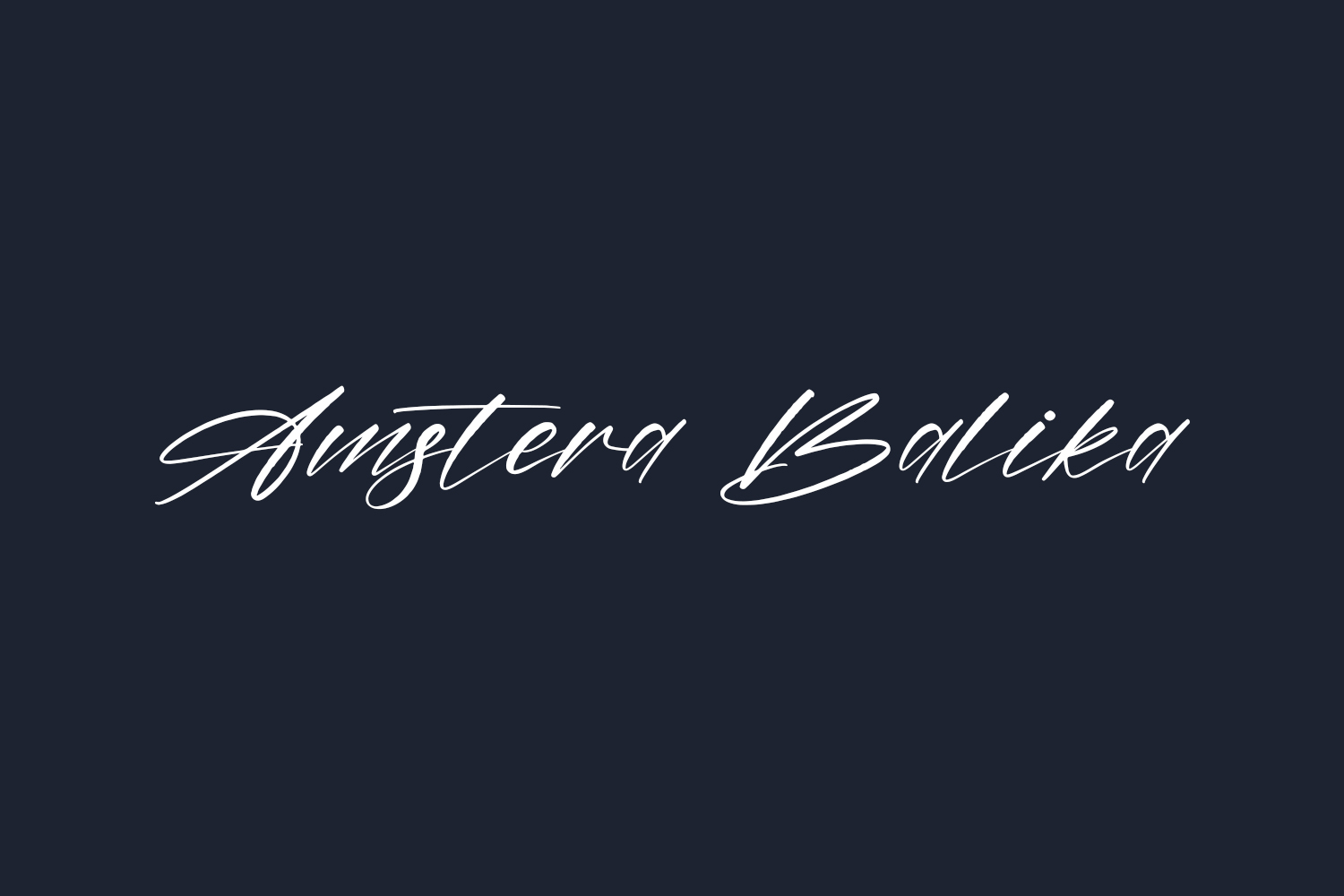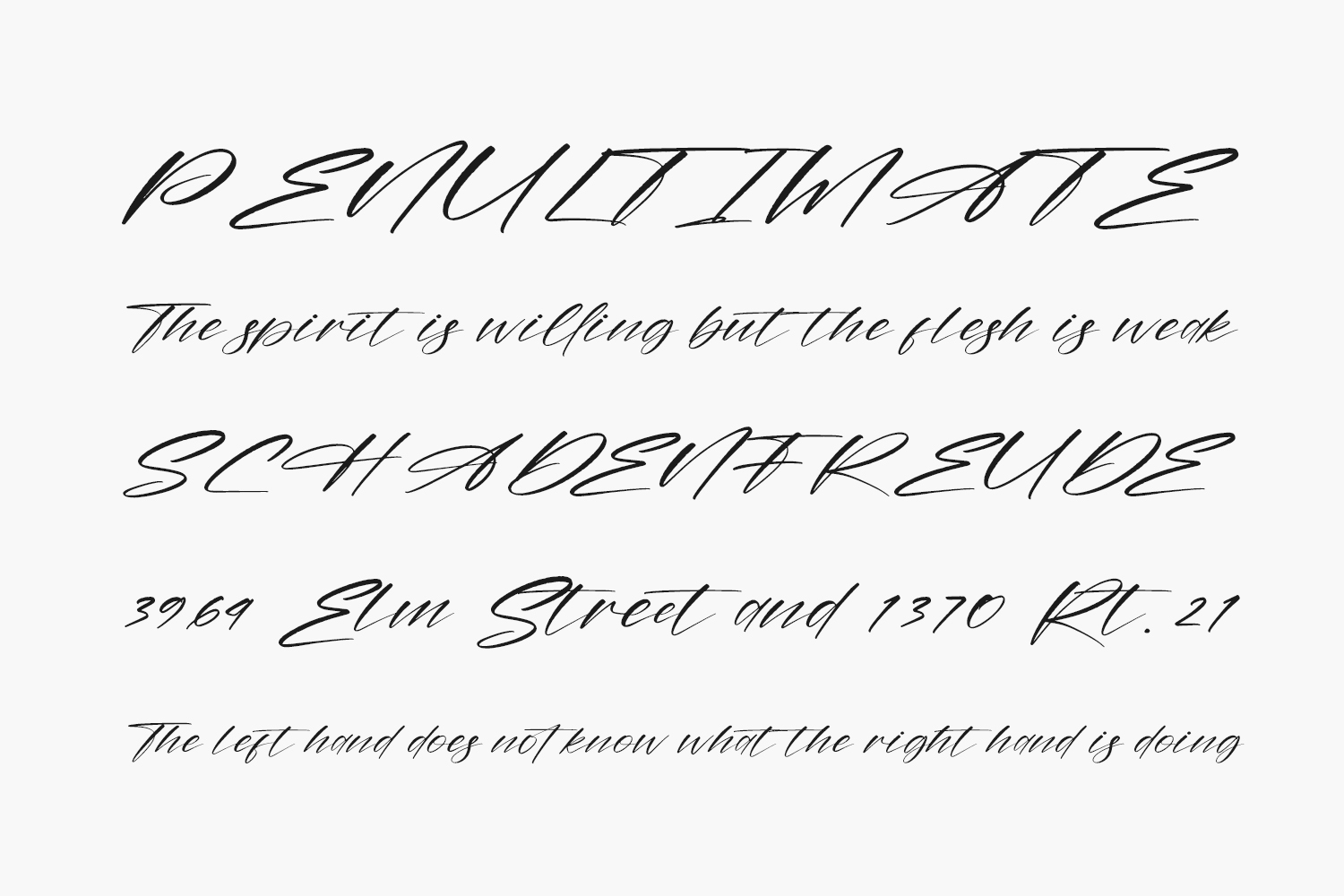
Amstera Balika Free Font is a chic, refined script font that emanates sophistication and elegance. Its stylish alternates and ligatures make this font the perfect match for any project. Amstera Balika Free Font was designed by Letterena Studios and is free for personal use only. Please purchase the full version for commercial use.